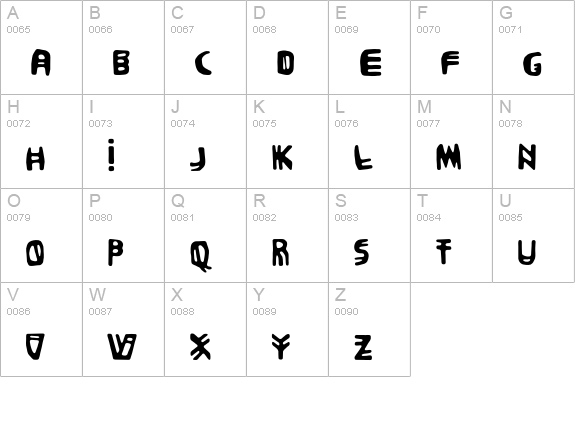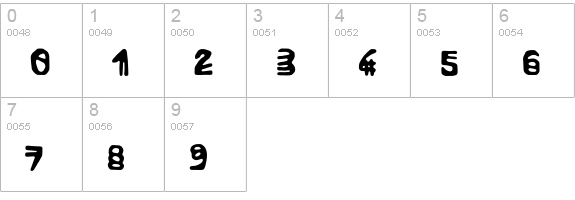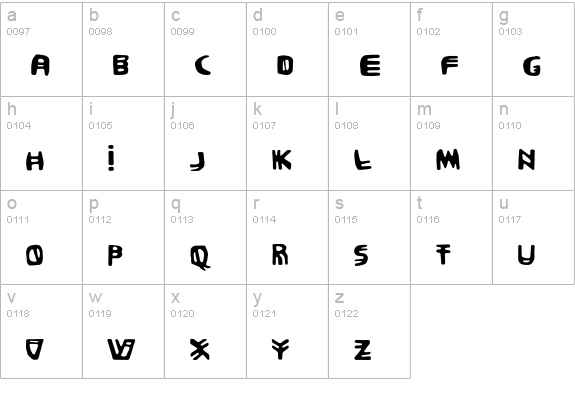
Coltello Font Details
Coltello font is a modern and stylish typeface that exudes elegance and sophistication. With its sleek lines and sharp edges, this font is perfect for creating eye-catching designs that demand attention. Whether you're working on a logo, branding materials, or a poster, Coltello font will add a touch of class to your project. The best part? Coltello font is completely free to download at FontsMarket.com. That's right, you can easily access this stunning font at no cost and elevate your designs without breaking the bank. Don't miss out on the opportunity to enhance your creative projects with the sleek and stylish Coltello font, available for free download now.